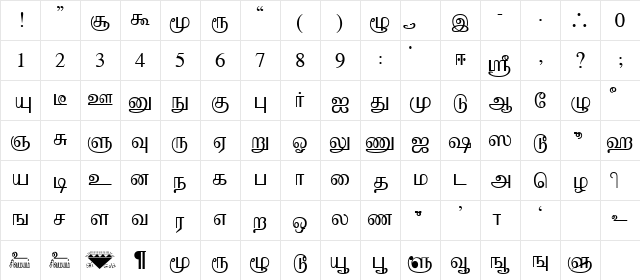
AnbeSivam Regular
Design Context for AnbeSivam Typeface
AnbeSivam offers clean, dependable letterforms without strong stylistic allegiance, making it a practical choice for designers who need flexibility.
Pro Tip: Use AnbeSivam in both headline and body roles to test its range before committing to a single application.